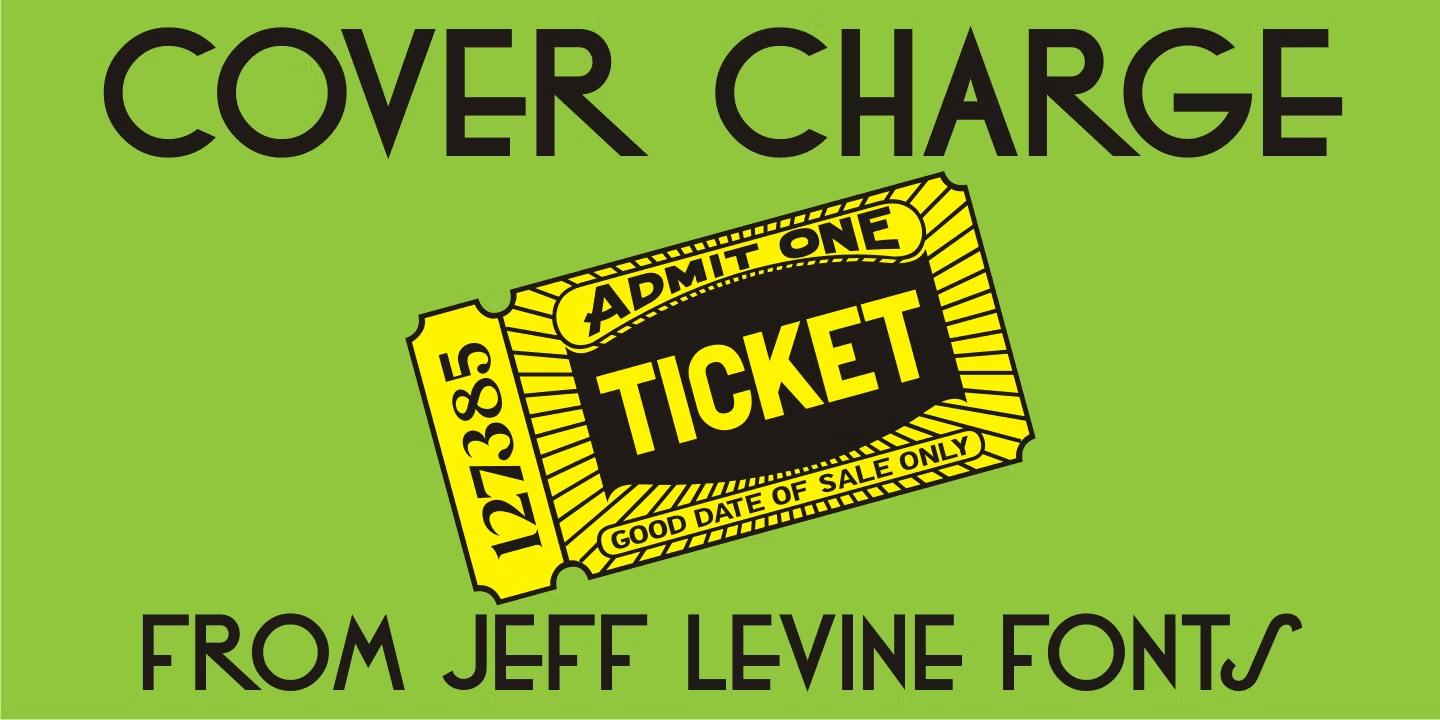
Cover Charge
Cover Charge JNL was modeled from some Art Deco-era sheet music.
Although less prevalent today, a cover charge was added to better class night clubs of the 1930s and 1940s to discourage patronage by people of questionable social graces. The general idea was that the lower strata of society (meaning the 'average Joe” or 'hoi polloi”) would balk at paying an extra fee just for entrance to a place of good entertainment and fine dining.